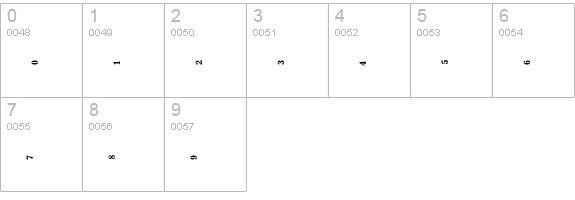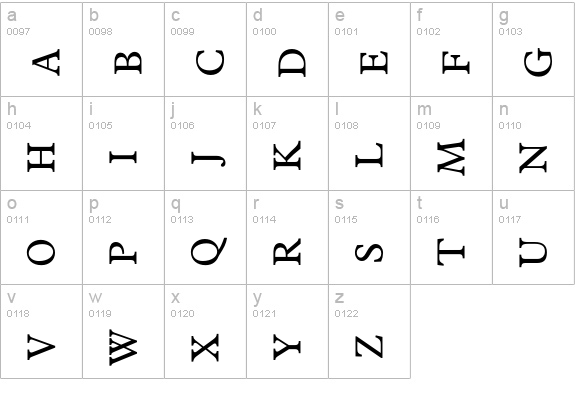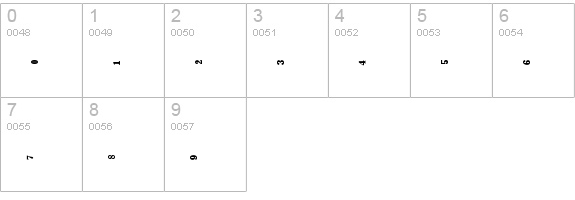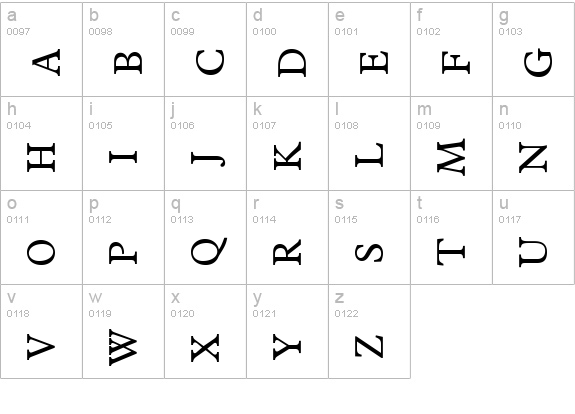
SpecialAlphabetsP11 font is a unique and captivating typeface that will add a touch of creativity to any design project. With its intricate and whimsical letterforms, this font is perfect for adding a playful and artistic twist to your designs. The SpecialAlphabetsP11 font features a wide range of special characters and symbols, making it ideal for creating eye-catching headlines, logos, and signage. Whether you're working on a poster, a website, or a branding project, this font will make your design stand out from the crowd. Not only is SpecialAlphabetsP11 font visually stunning, but it is also incredibly versatile. It can be used for both personal and commercial projects, making it a must-have for designers, artists, and creative professionals. Plus, it is freely available to download at FontsMarket.com, ensuring that you can easily access this amazing font without any hassle. The attention to detail in the SpecialAlphabetsP11 font is second to none. Each letter is meticulously crafted to ensure a seamless and visually pleasing result. The unique shapes and curves give this font a distinctive and artistic feel, making it a great choice for adding a touch of elegance and sophistication to your designs. Whether you're looking to create a stunning logo, a captivating headline, or a memorable piece of typography, the SpecialAlphabetsP11 font is the perfect choice. Its versatility, beauty, and availability make it an essential tool for any designer or creative individual. So why wait? Download SpecialAlphabetsP11 font for free at FontsMarket.com and let your creativity soar.